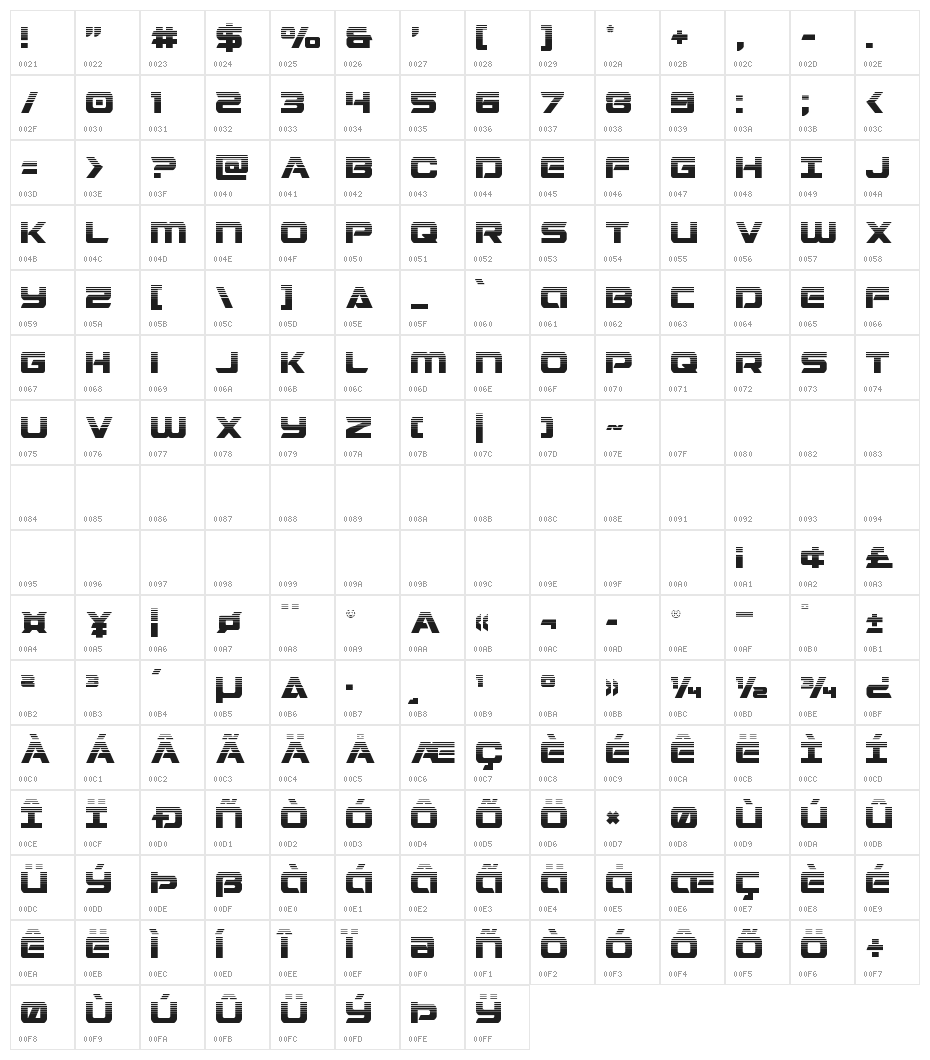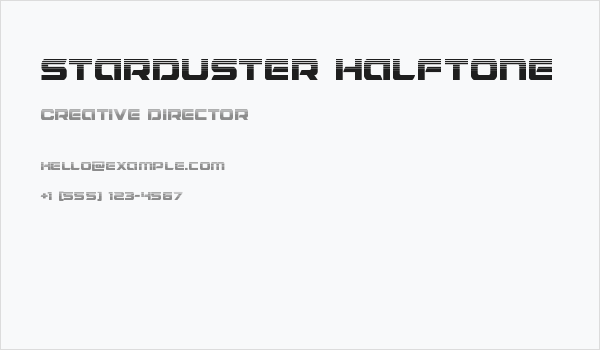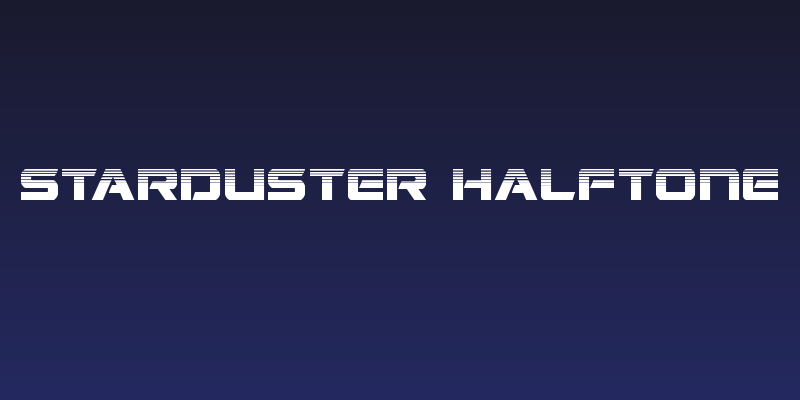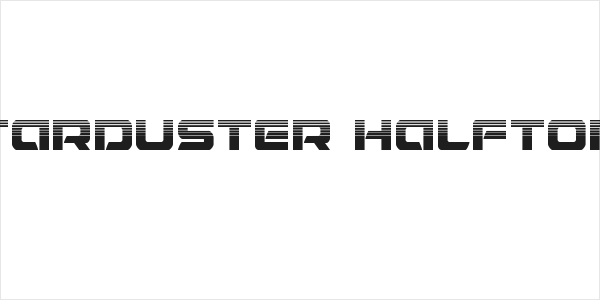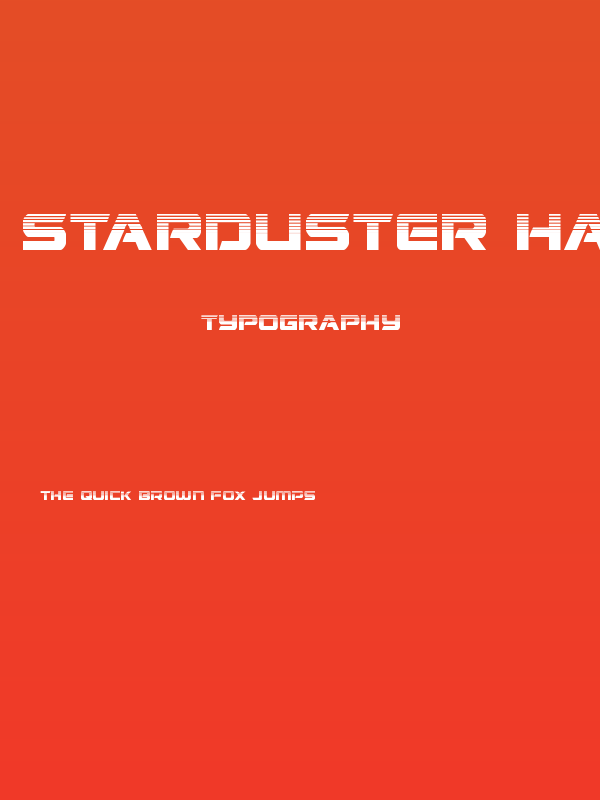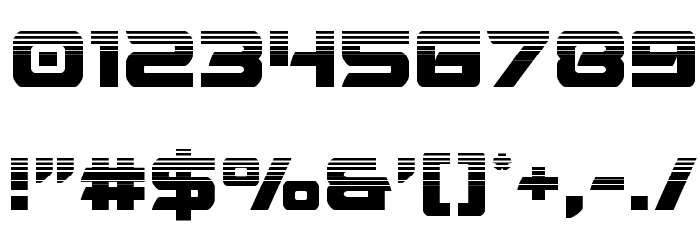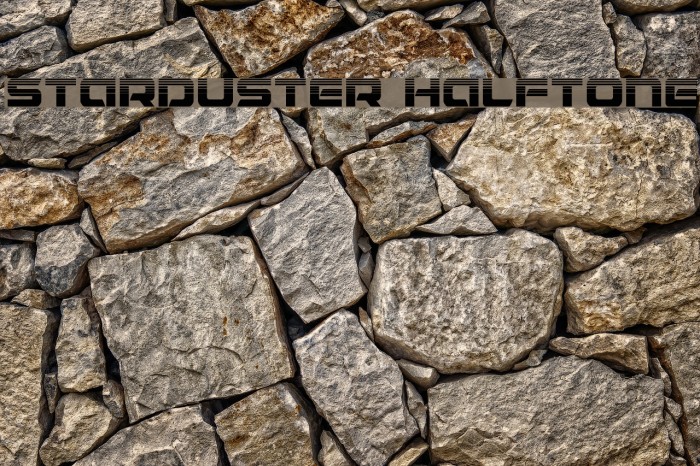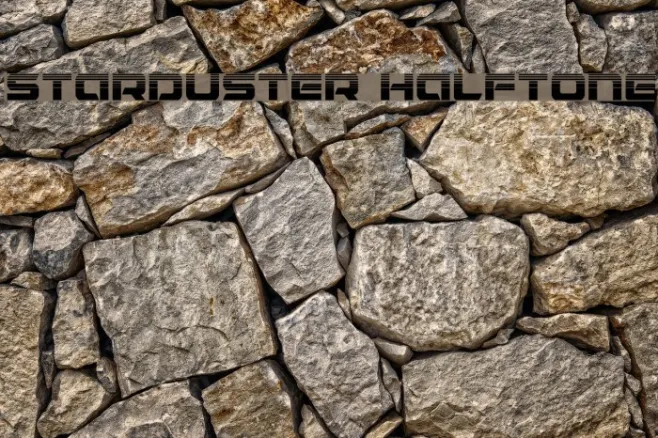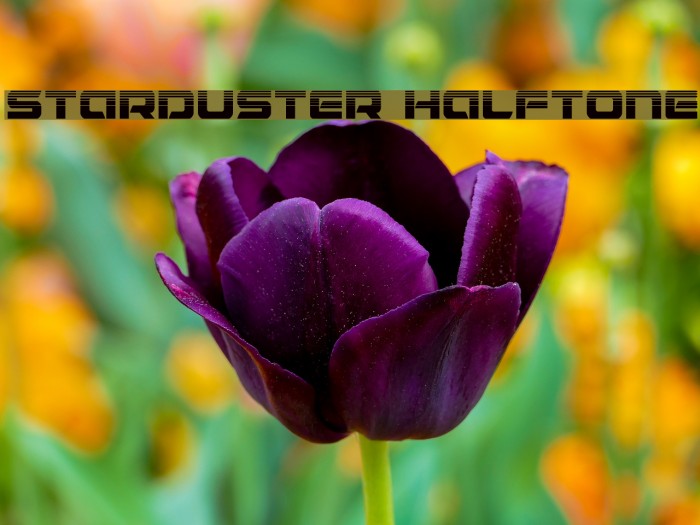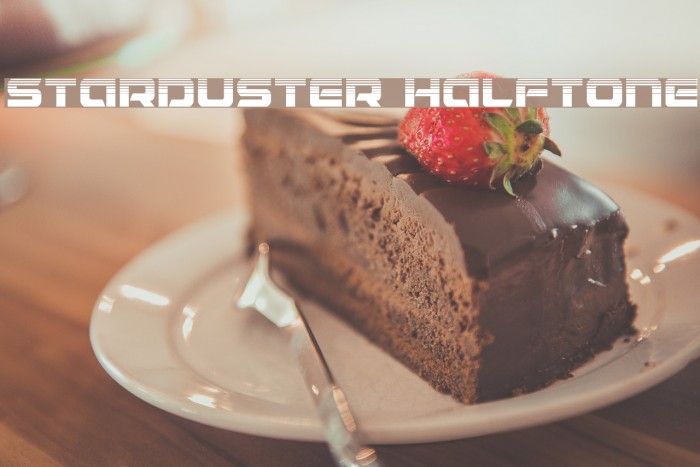
Starduster Halftone Font
Starduster Halftone Description
This font features a bold, futuristic design with a halftone effect that gives it a unique, digital appearance. The characters are constructed with horizontal lines that create a sense of movement and depth. The uppercase and lowercase letters maintain a consistent style, with sharp angles and geometric shapes. Numbers and special characters are designed to match the overall aesthetic, making this font ideal for projects that require a modern and dynamic look. The halftone effect adds a layer of complexity, making it stand out in digital and print media.
| Use Case | Headlines, Logos, Digital Art |
| Proposed Projects | Ideal for sci-fi themed projects, digital artwork, video game design, and modern branding. |